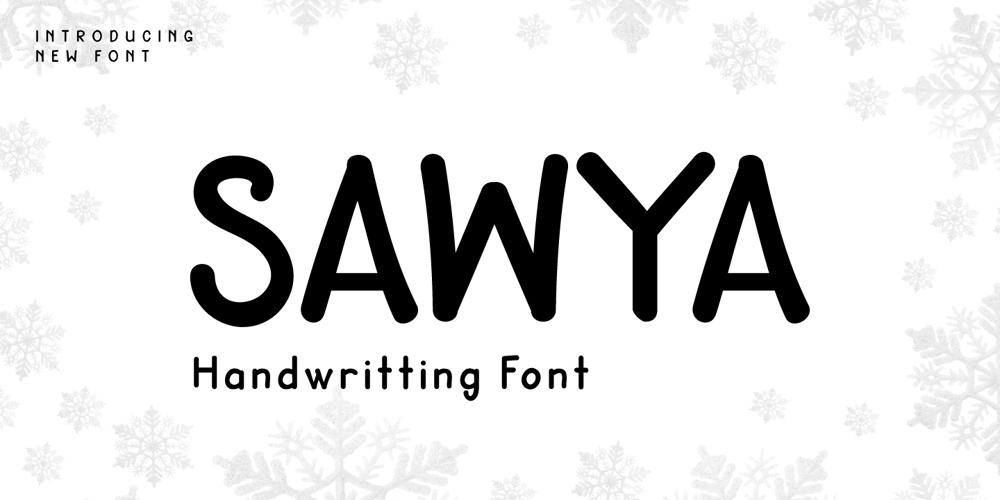
SAWYA
SAWYA font
SAWYA Font Family was designed by Rozikan and published by Twinletter. SAWYA contains 1 styles and family package options. Introducing SAWYA Font – a captivating display typeface that effortlessly embodies the authenticity of handwriting! Elevate your projects with the artistic touch of SAWYA, a seamless blend of style and individuality. Explore SAWYA today to witness your creative visions come alive!What’s Included : File font All glyphs Iso Latin 1 Alternate, Ligature Simple installations PUA Encoded Characters – Fully accessible without additional design software. Fonts include Multilingual support